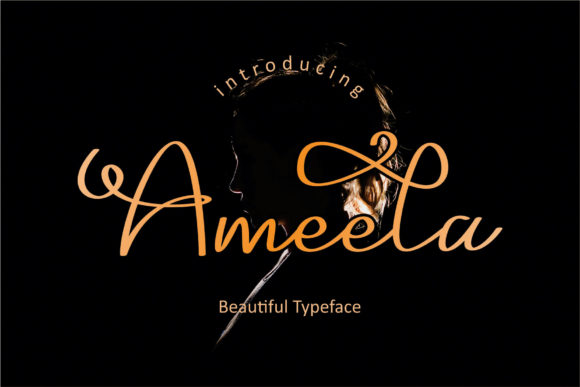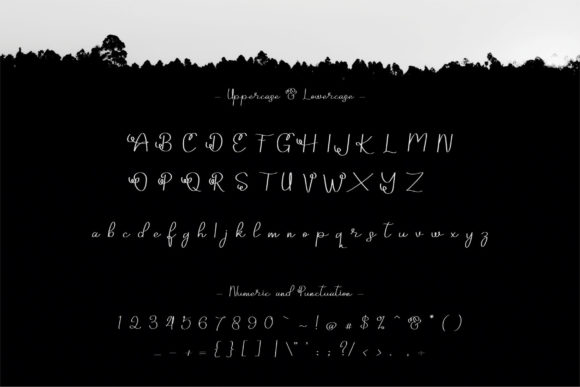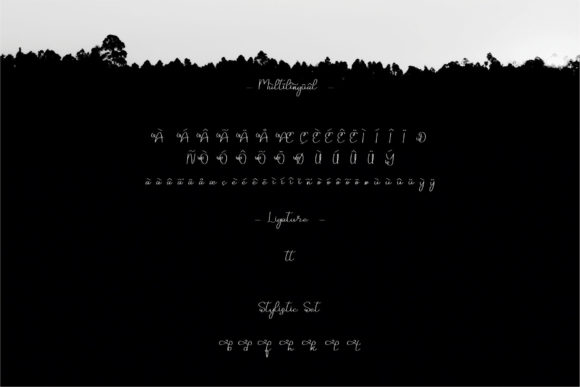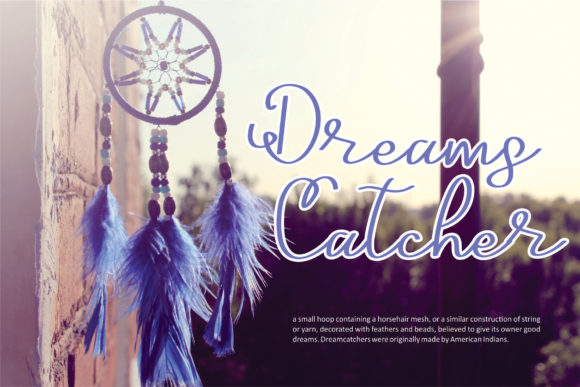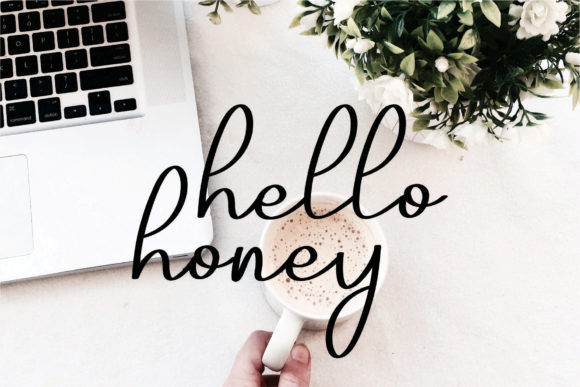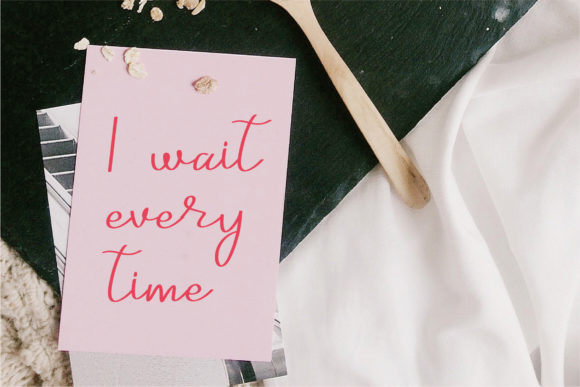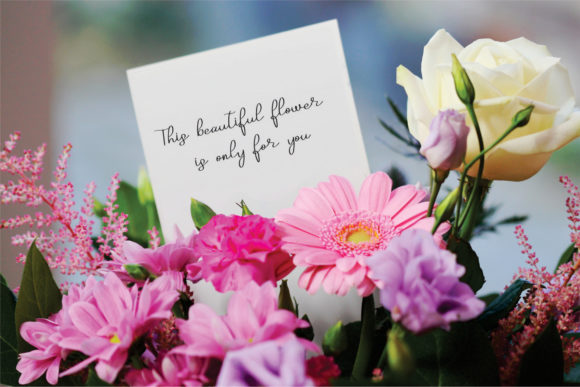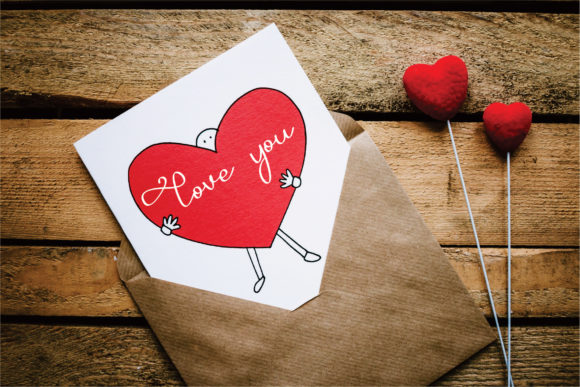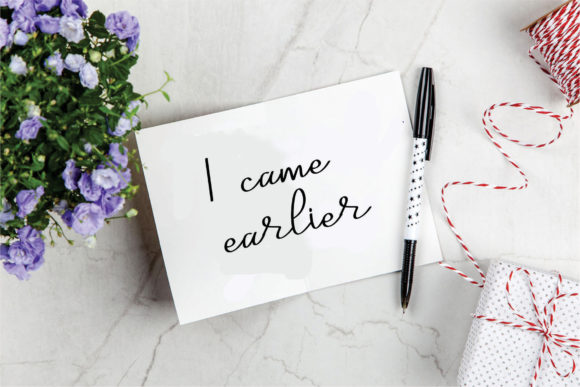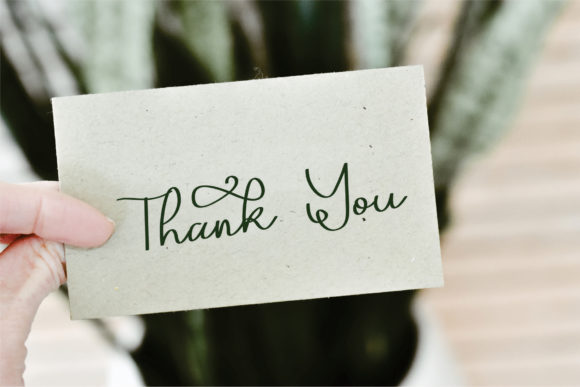
Ameela Font
About Ameela Font
Ameela is a charming handwritten font, embodying elegance and delicacy! It includes the full set of upper and lower case letters, multilingual symbols, numbers, punctuation and ligature, allowing you to bring your projects to the next level!